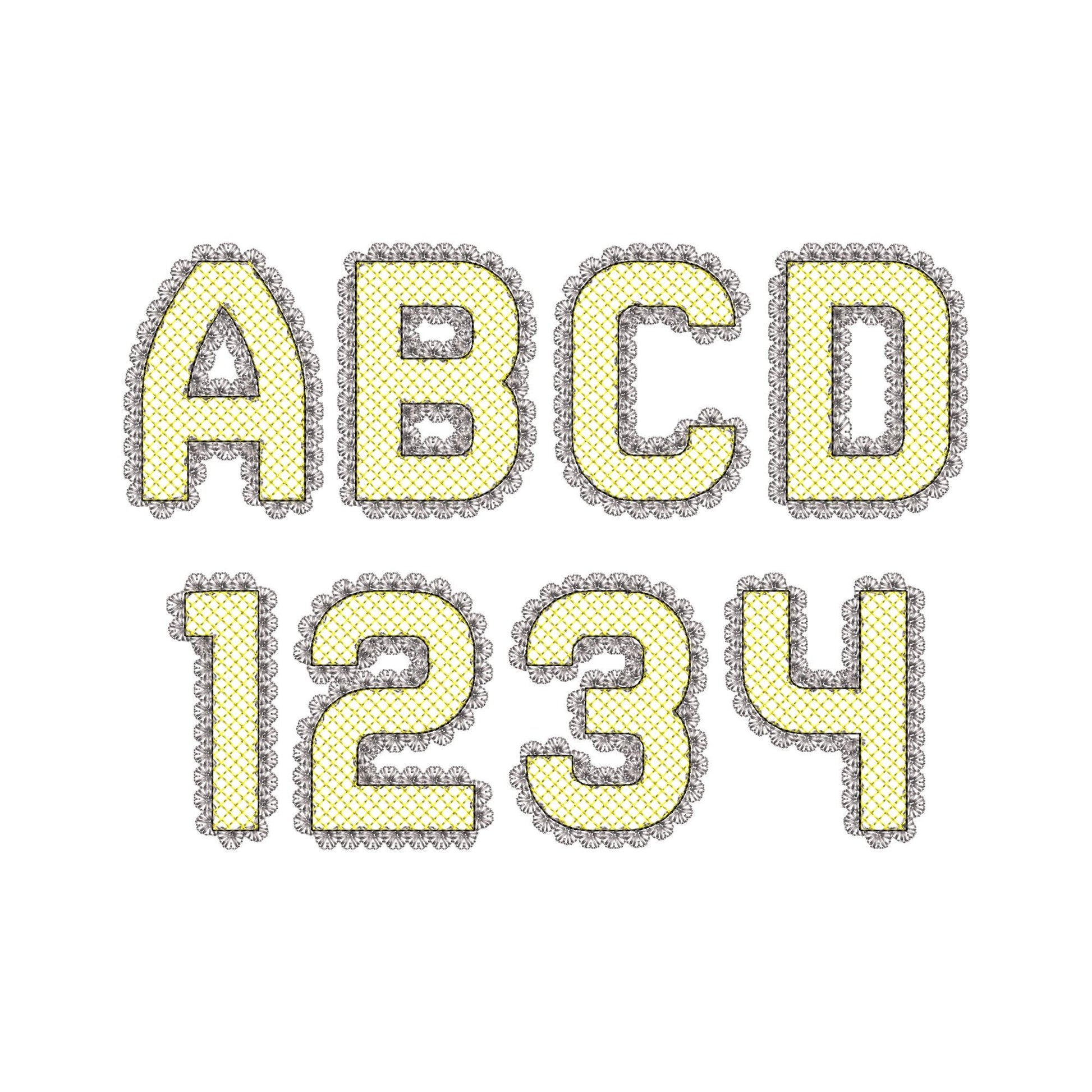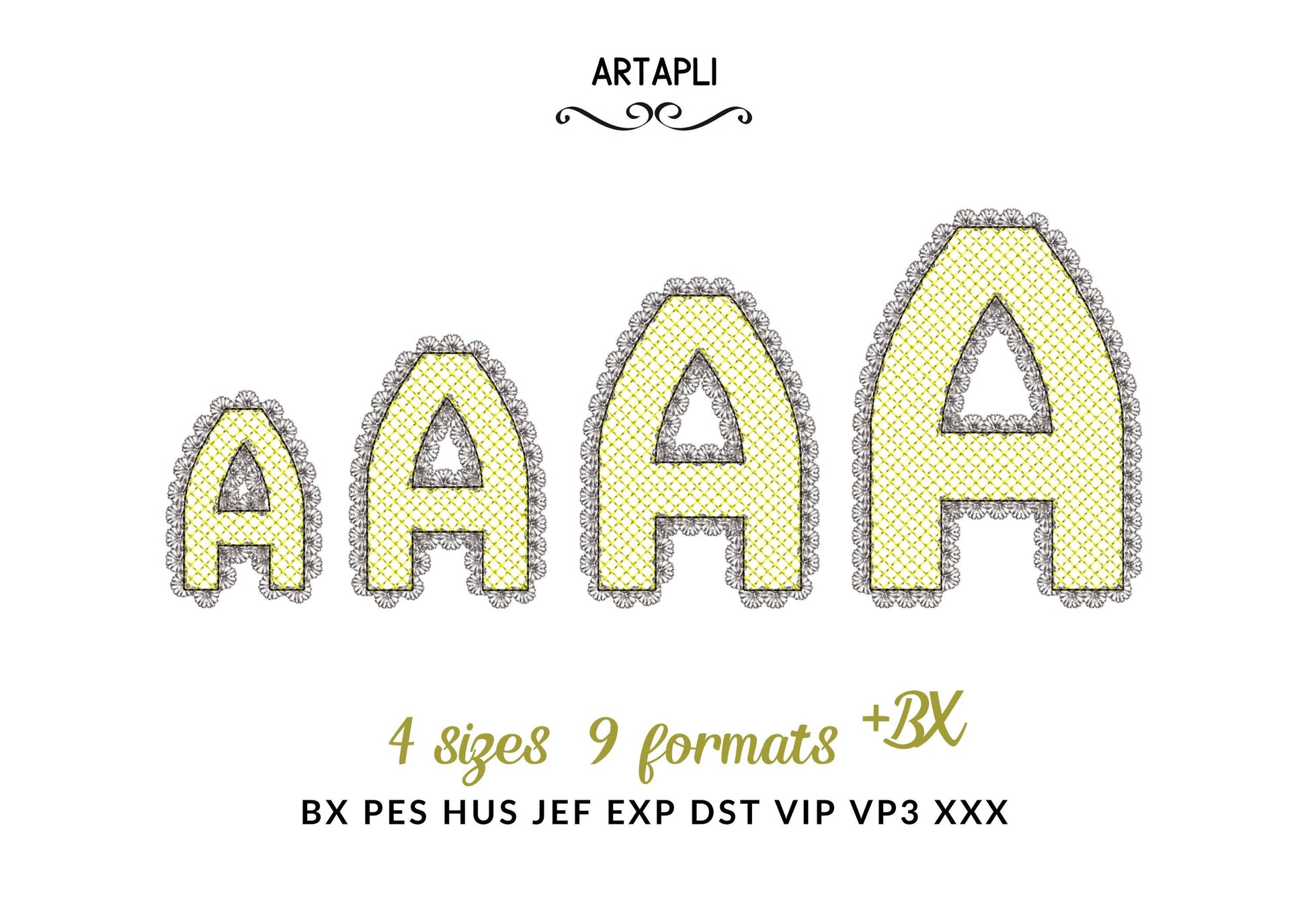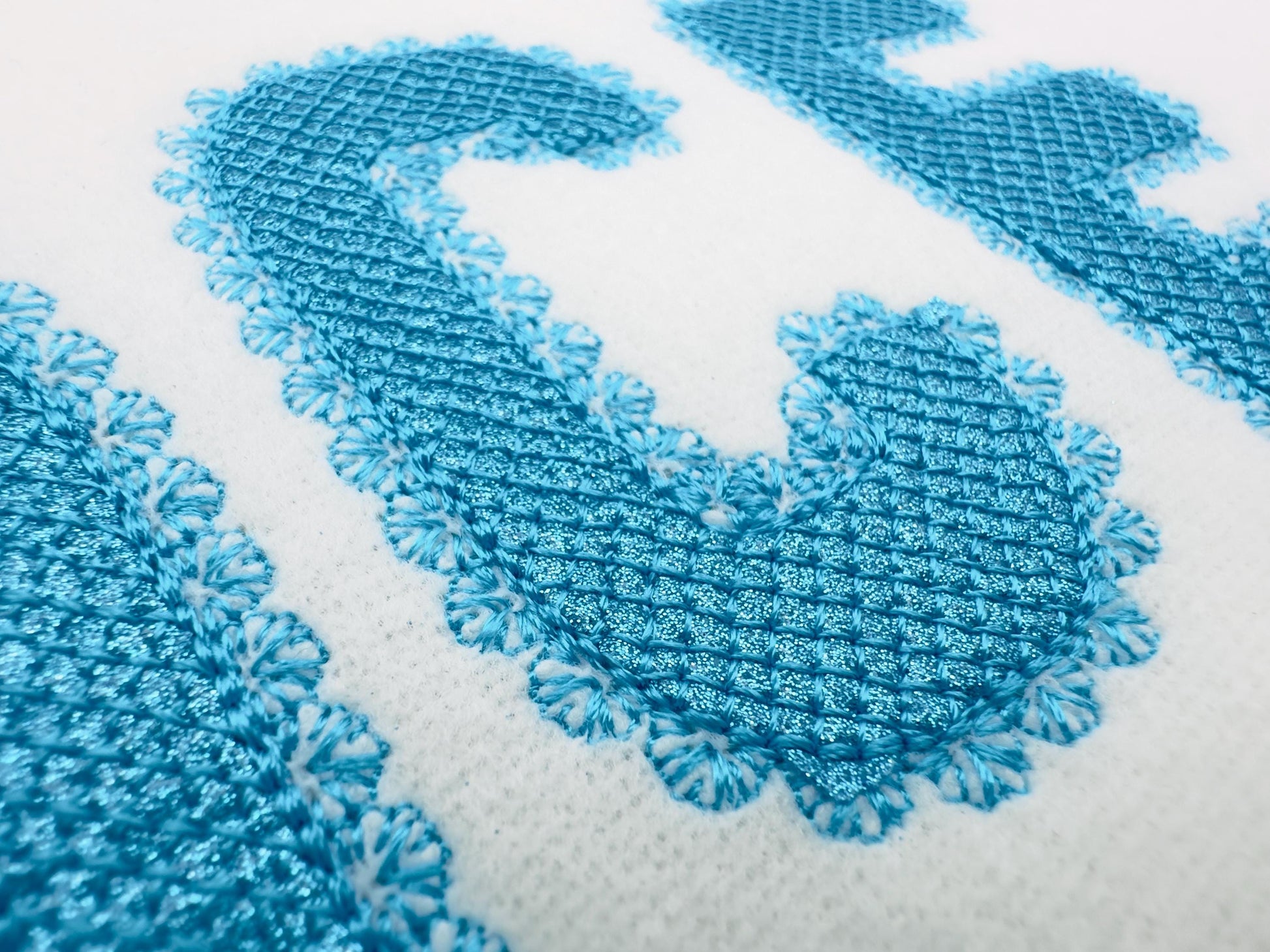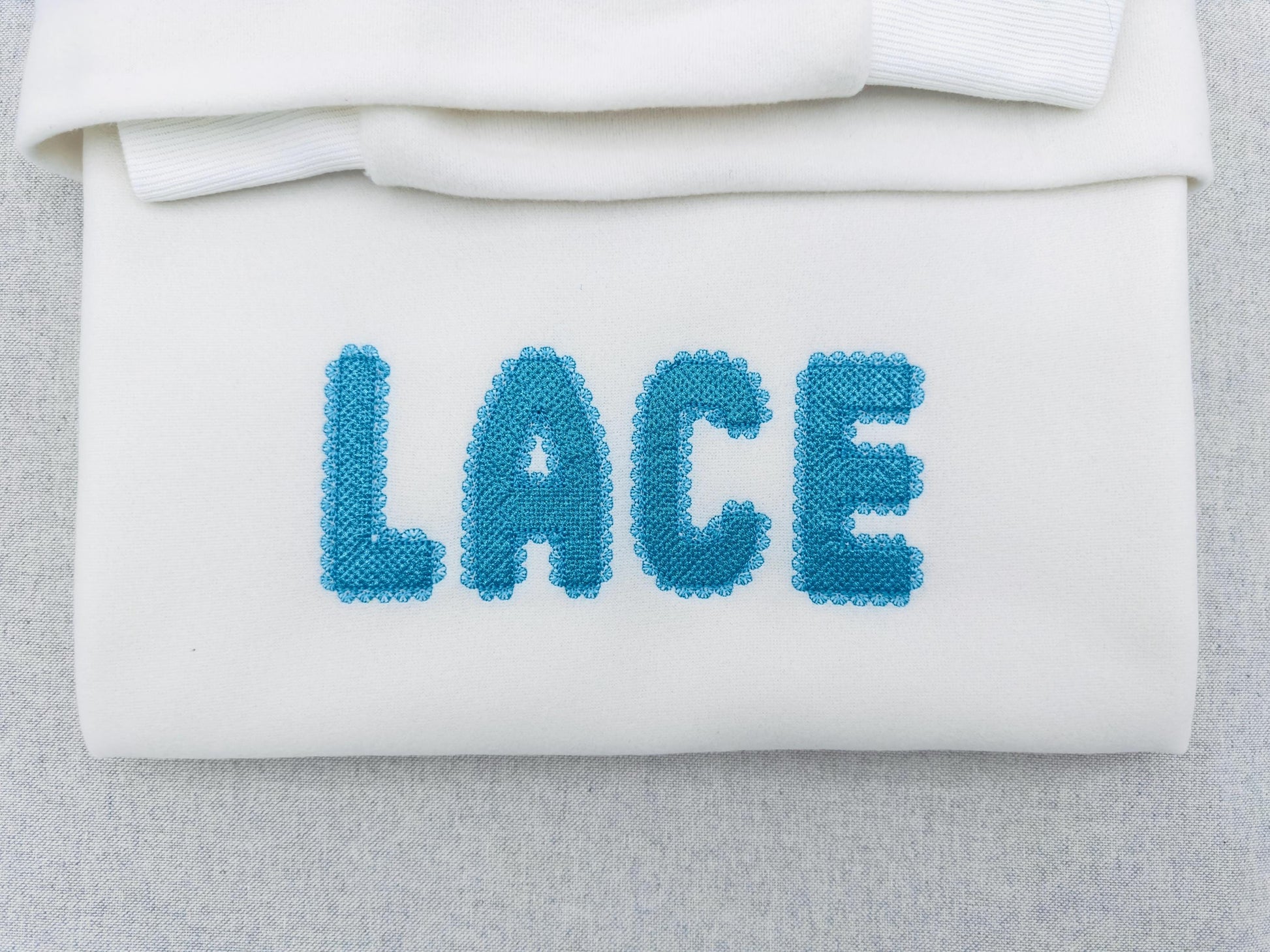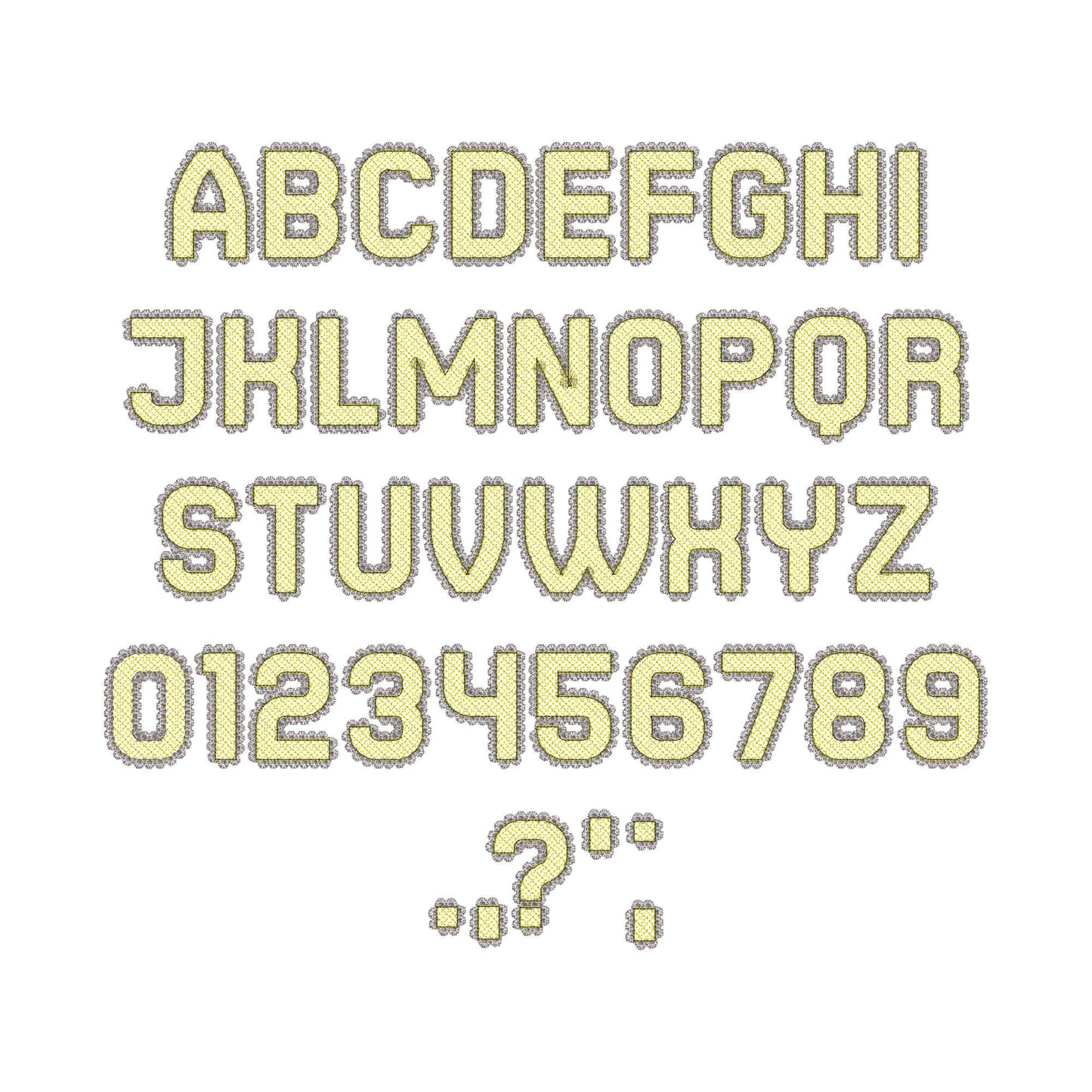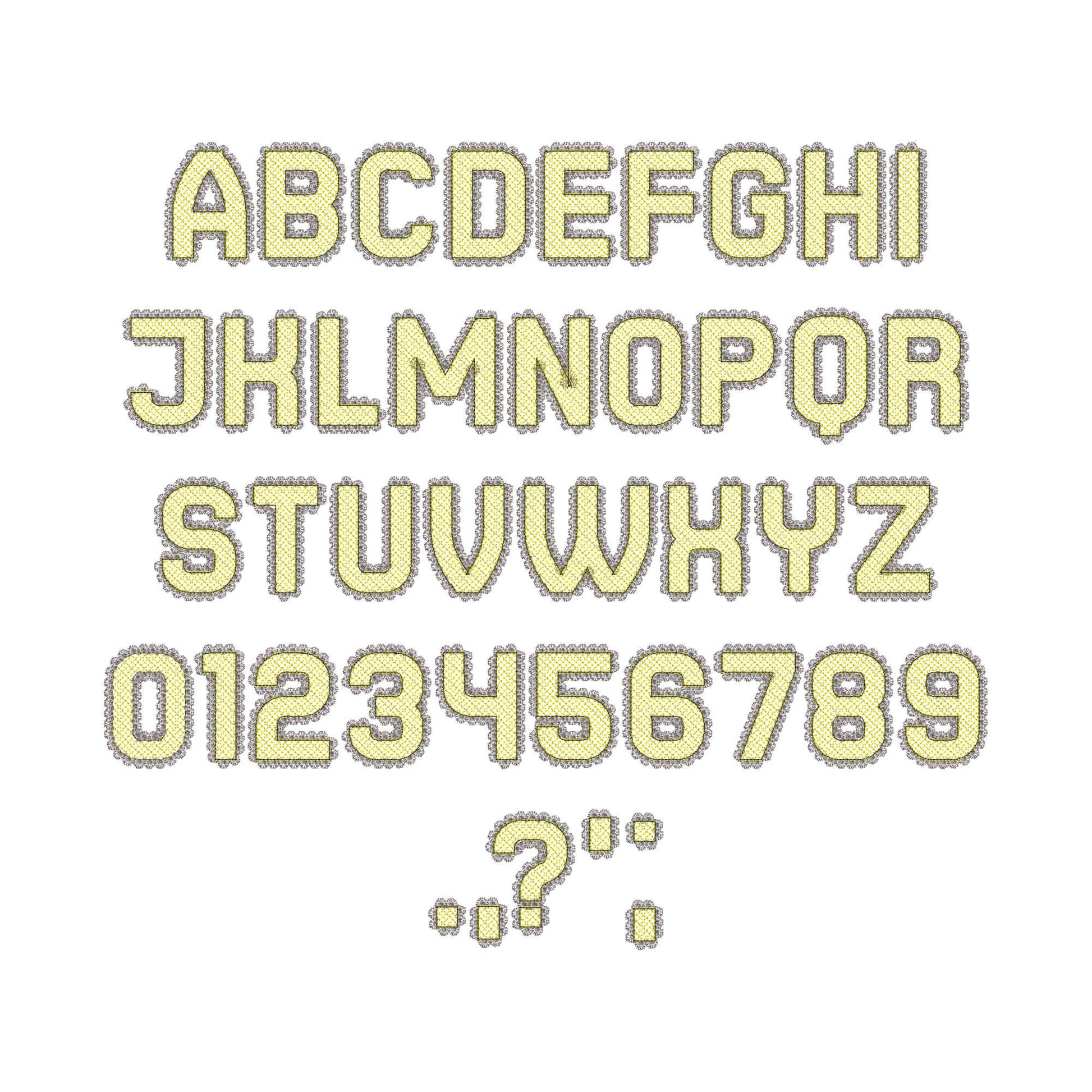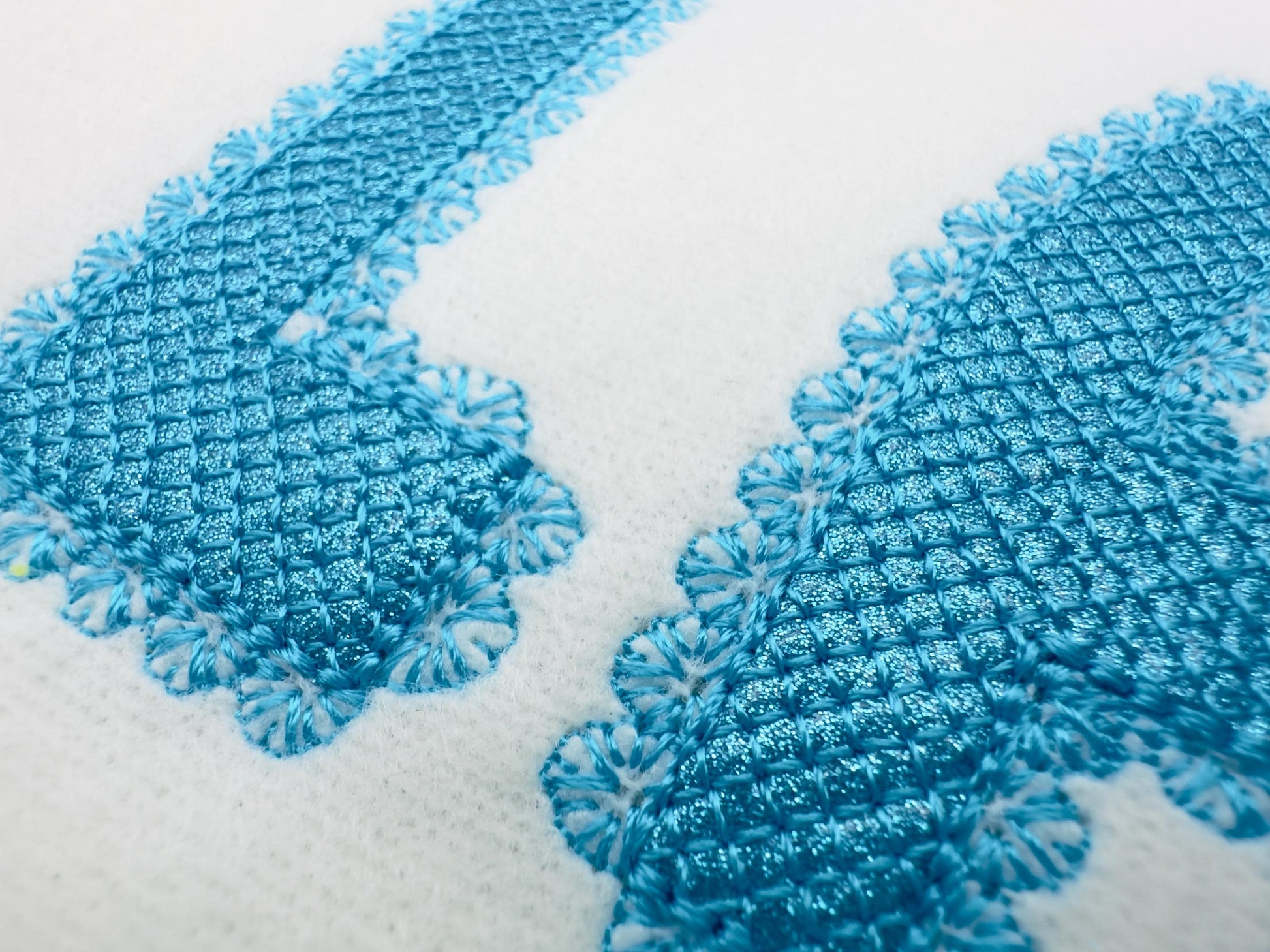
I love how it stitched out but the K looks just like the H. I don't want to try any of the other letters unless it can be resolved. I've reached out but haven't gotten a response.
Or click to open the linkA sparkly glitter vinyl font with a lace edge. Pretty for girls' names, monograms and party shirts.
The letters come in four sizes: 2, 2.6, 3.1 and 3.8 inches. Glitter heat transfer vinyl fills each letter, and the lace edge is stitched around it so the fabric shows through. Press or iron the vinyl after stitching; the finished design is wash-safe. Includes uppercase letters A to Z, numbers 0 to 9 and punctuation.
I love how it stitched out but the K looks just like the H. I don't want to try any of the other letters unless it can be resolved. I've reached out but haven't gotten a response.